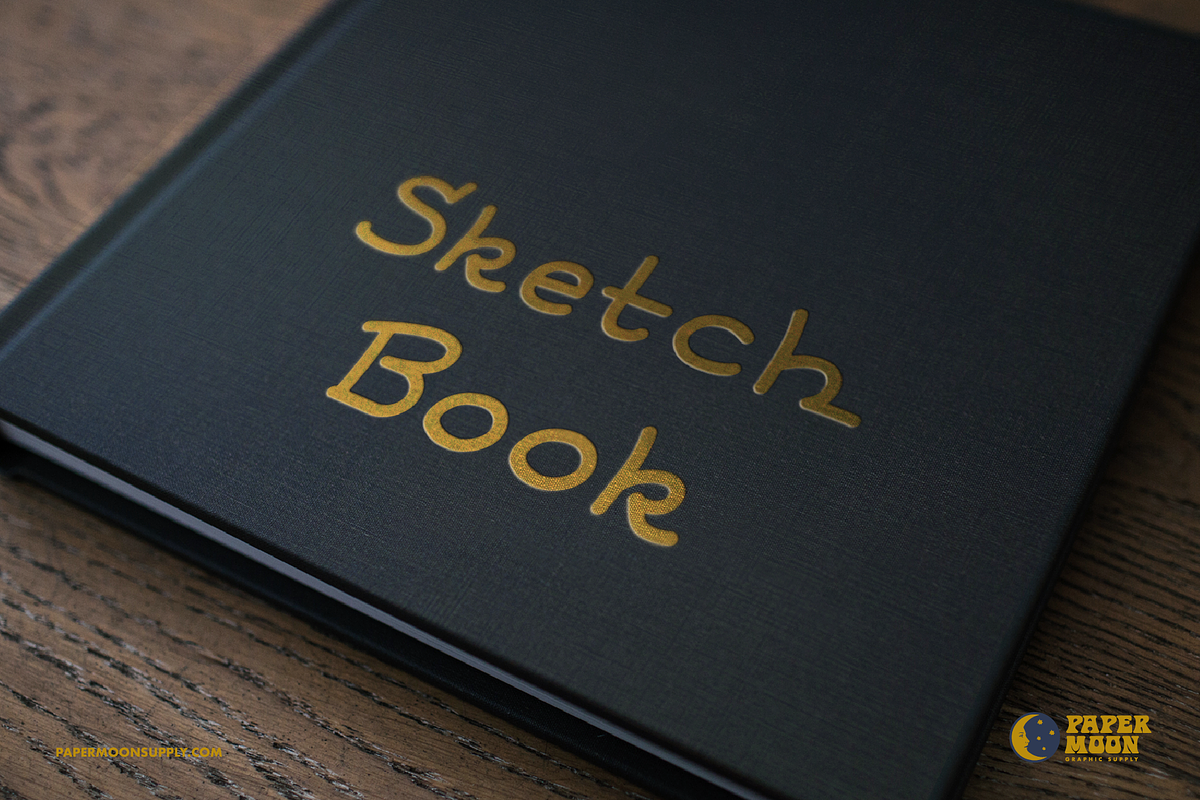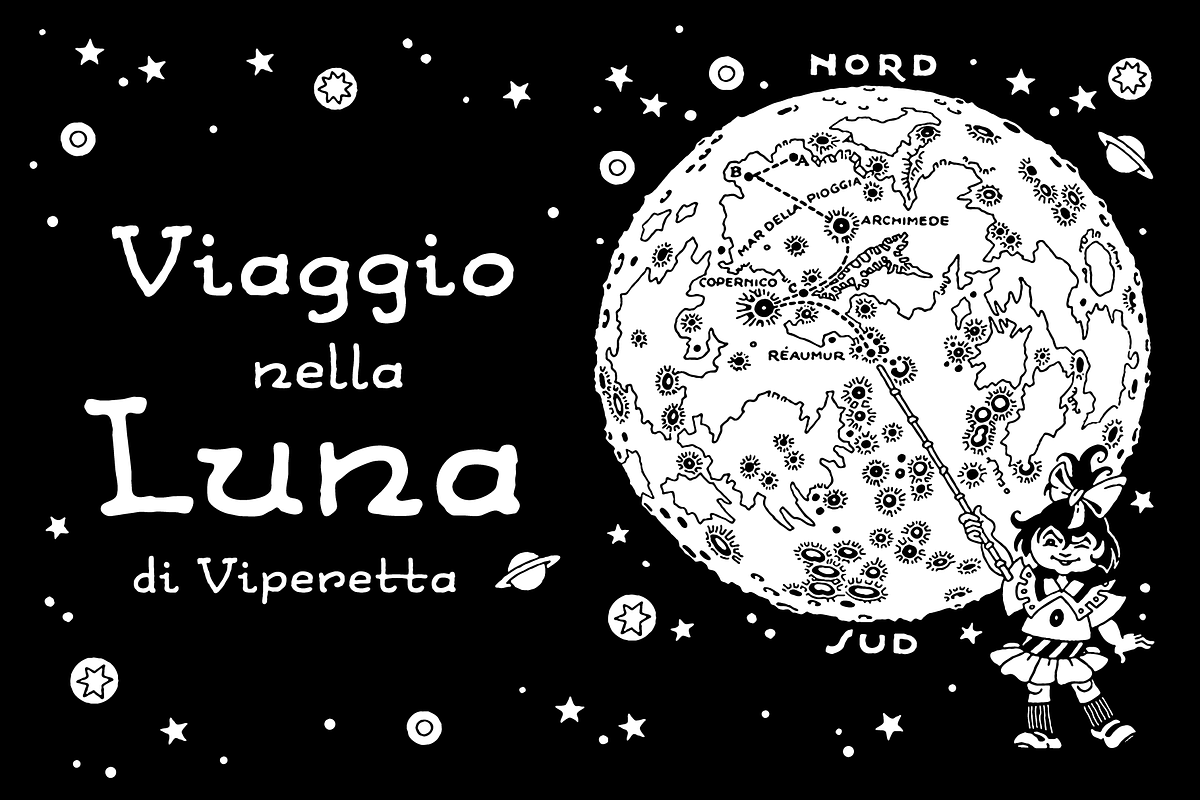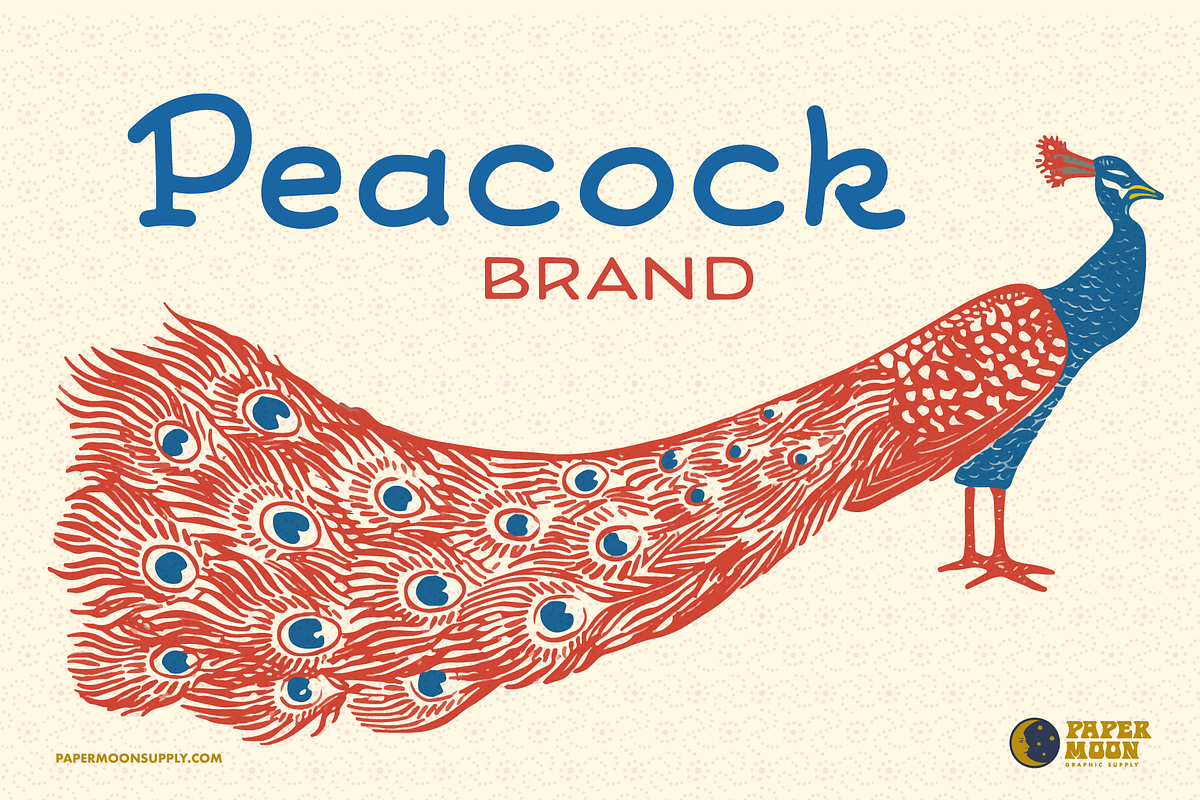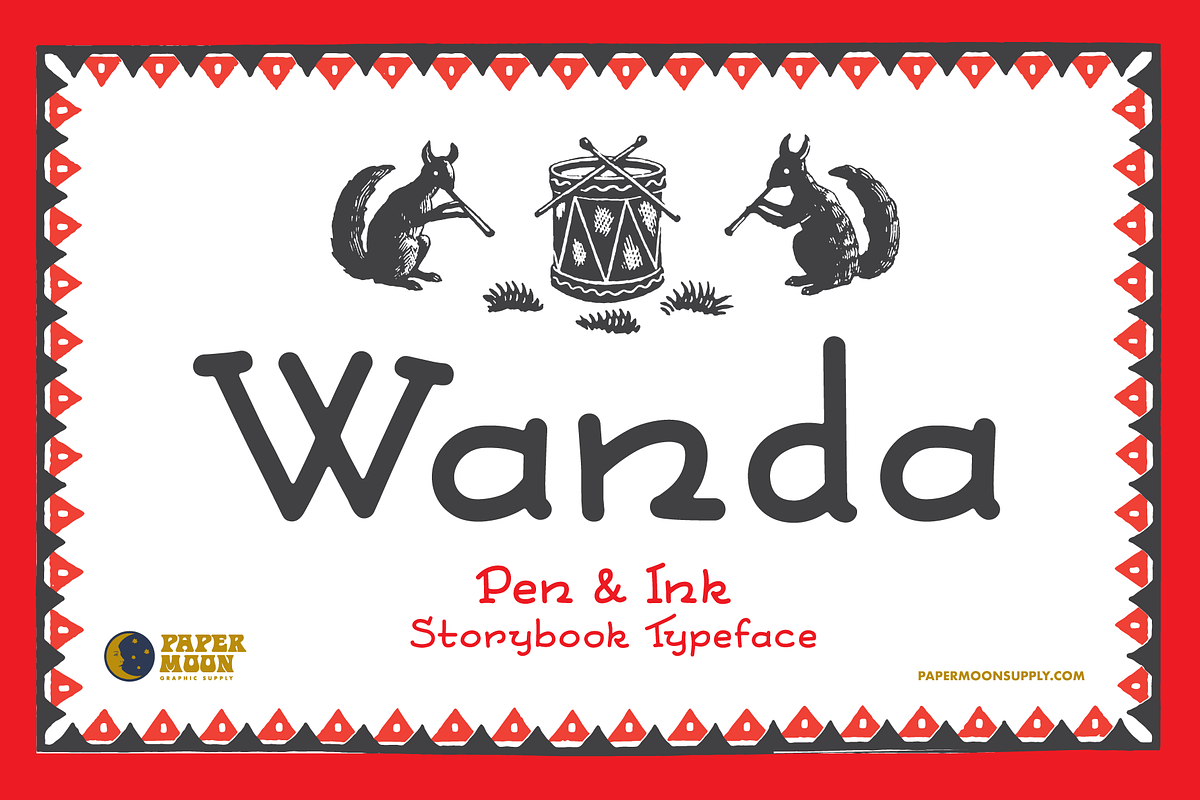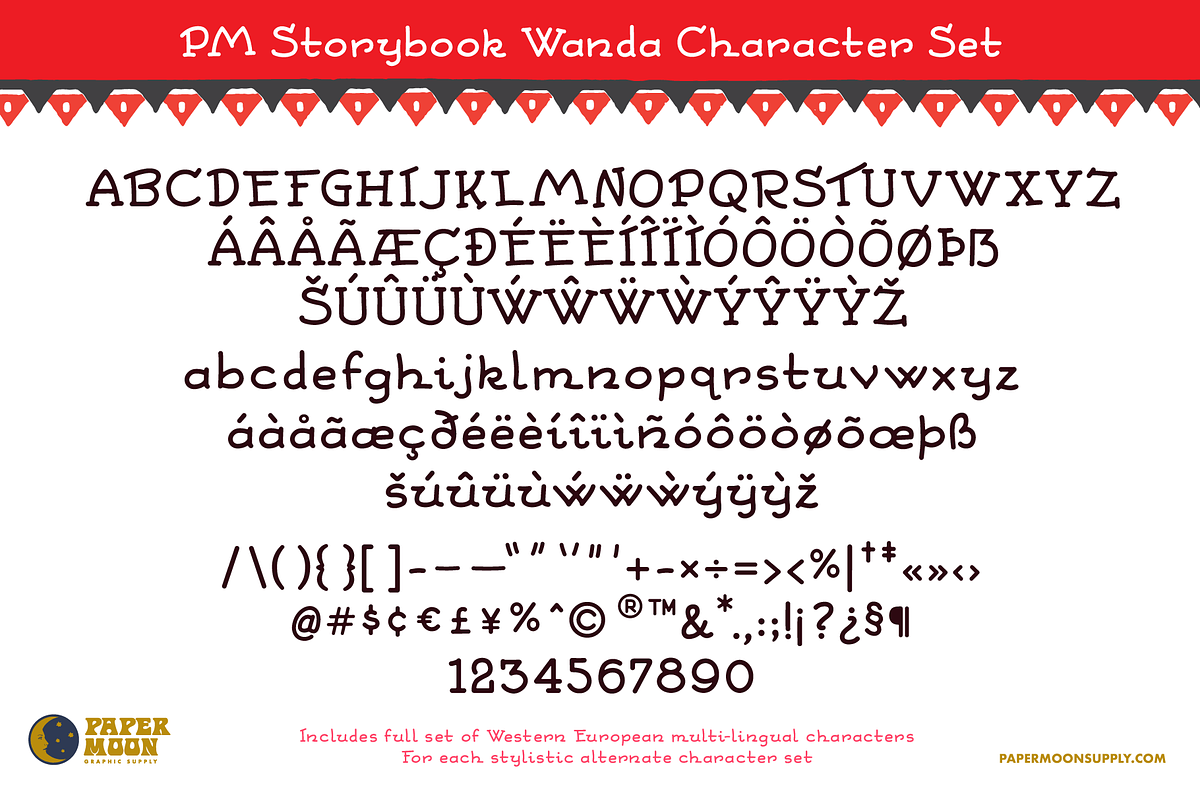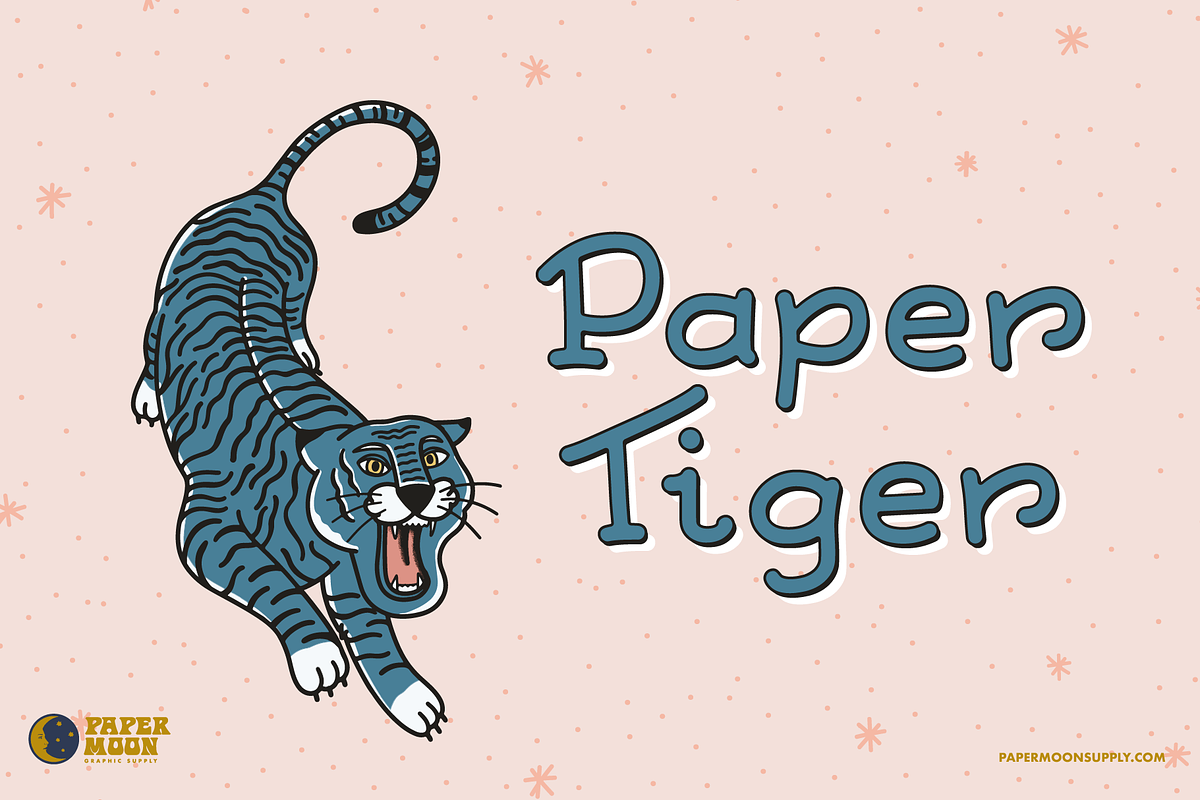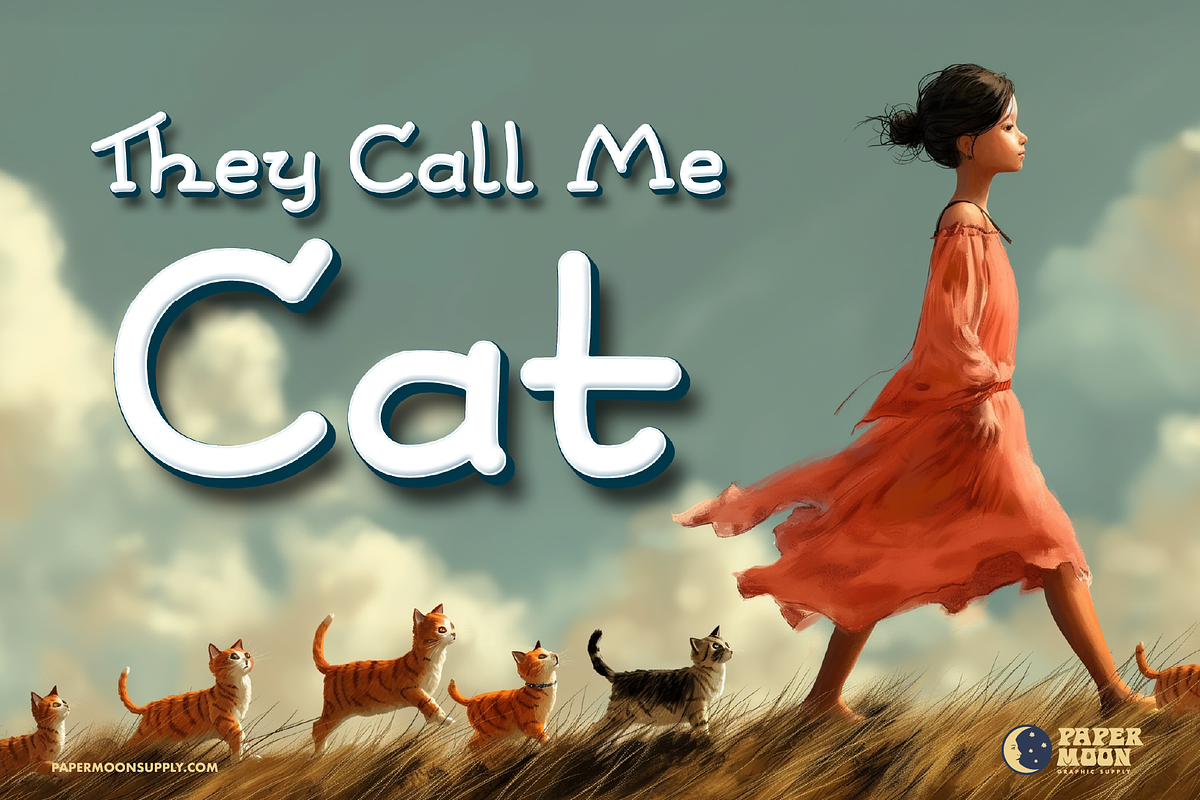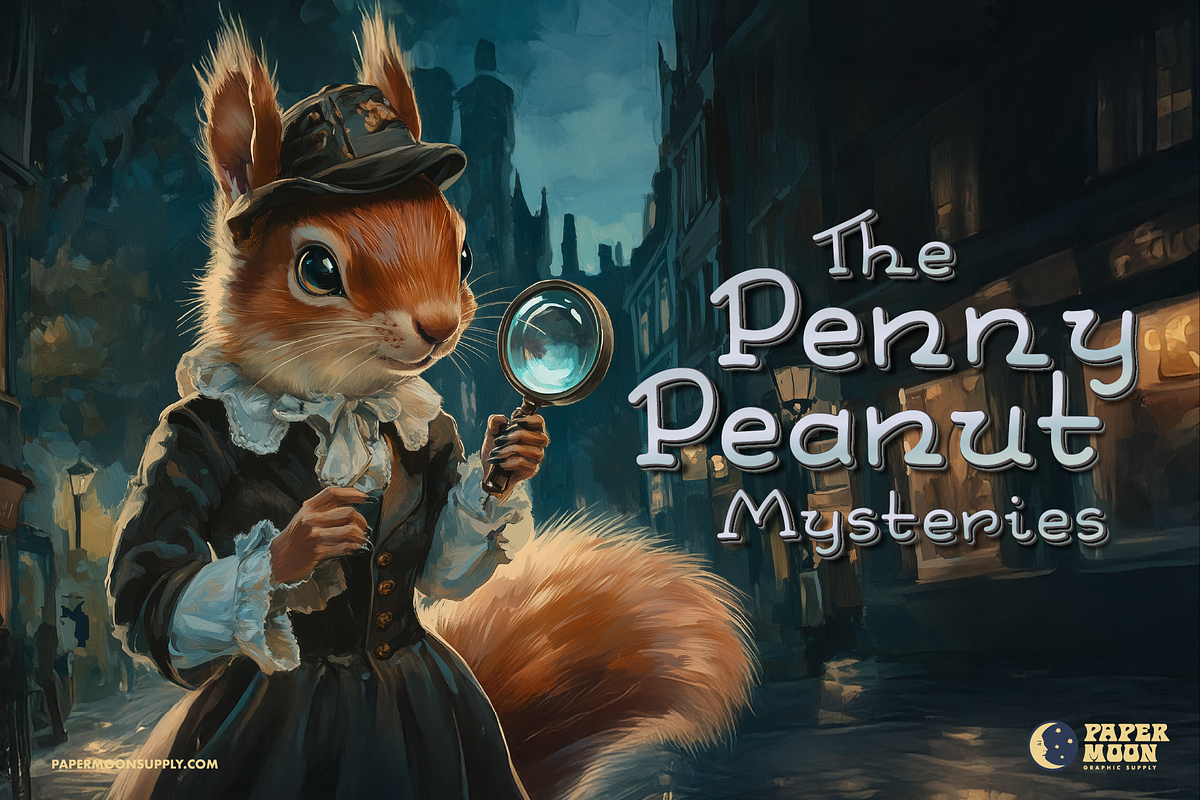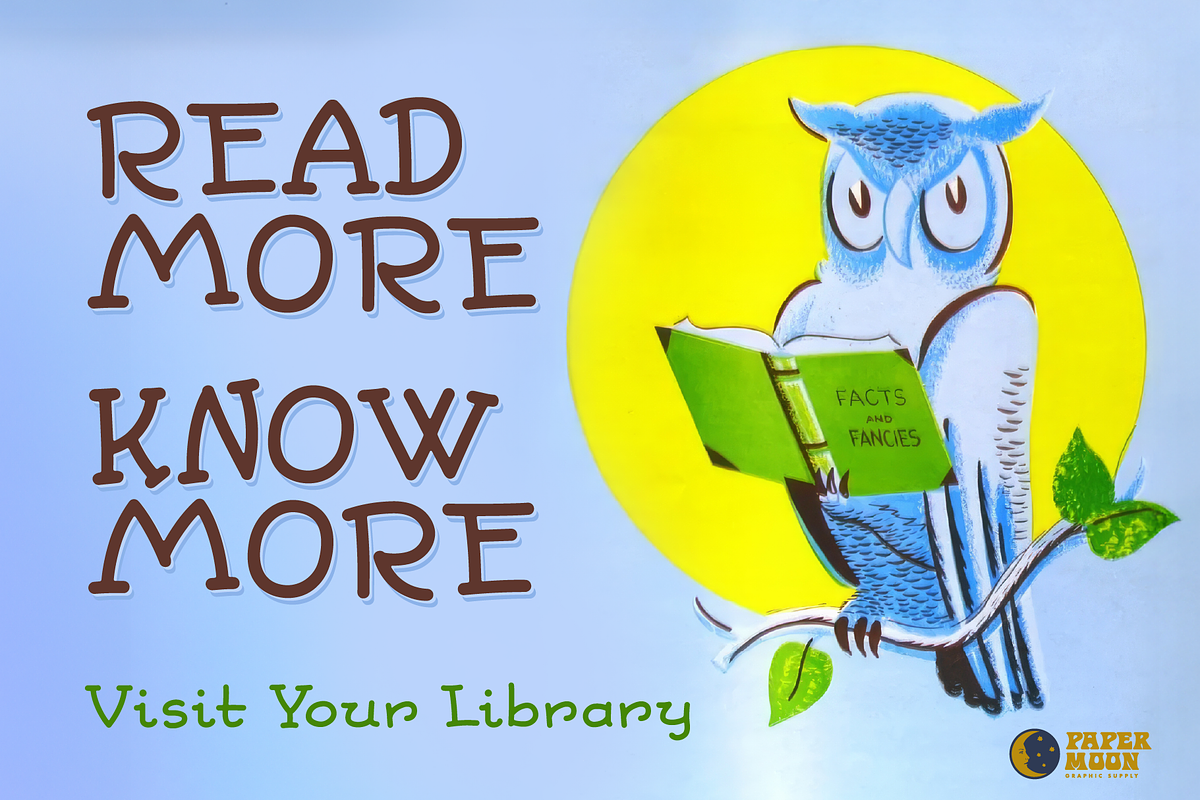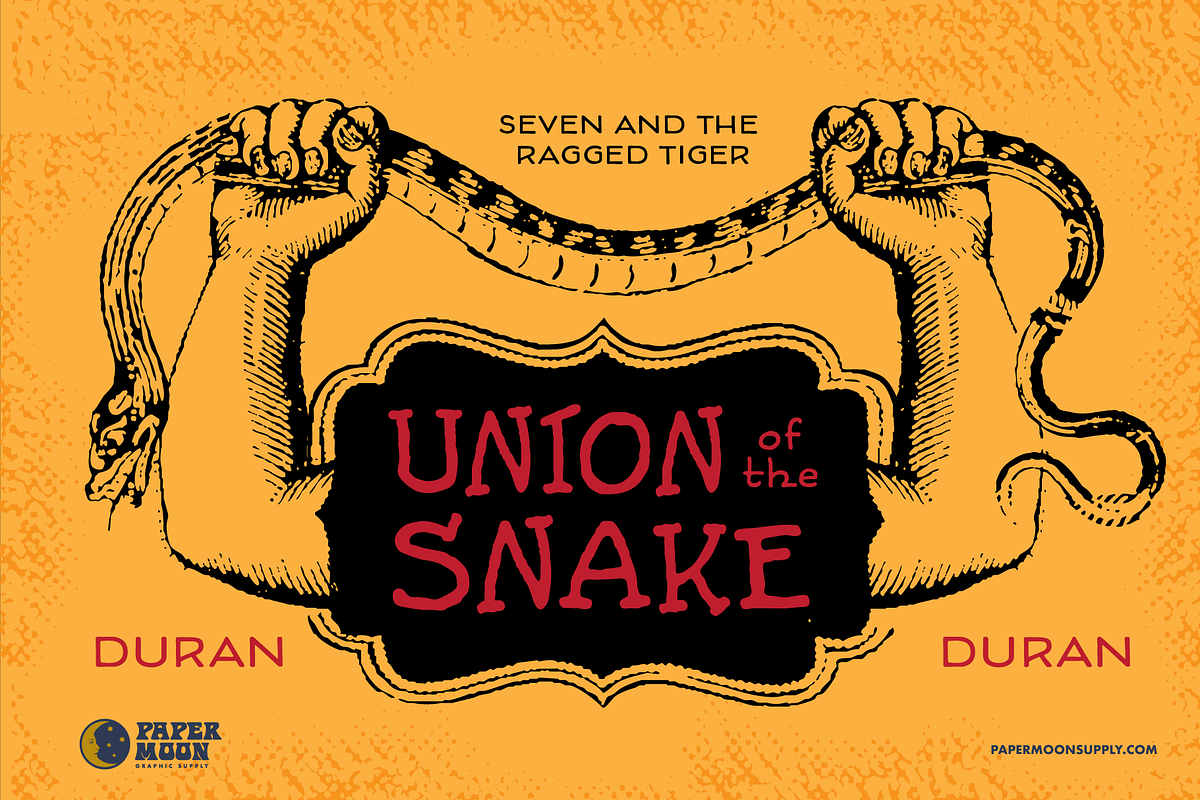
Wanda Vintage Pen & Ink Style Font
PM Wanda
A new hand-drawn single-stroke pen and ink font inspired by vintage advertising and storybooks lettering from the 1920s.
- Three versions
- Over 50 stylistic alternates
- Contextual alternates to avoid consecutive letter repeats
- Complete alphabet, number, and punctuation sets
PM Wanda was developed by award-winning illustrator and designer Scott Banks.